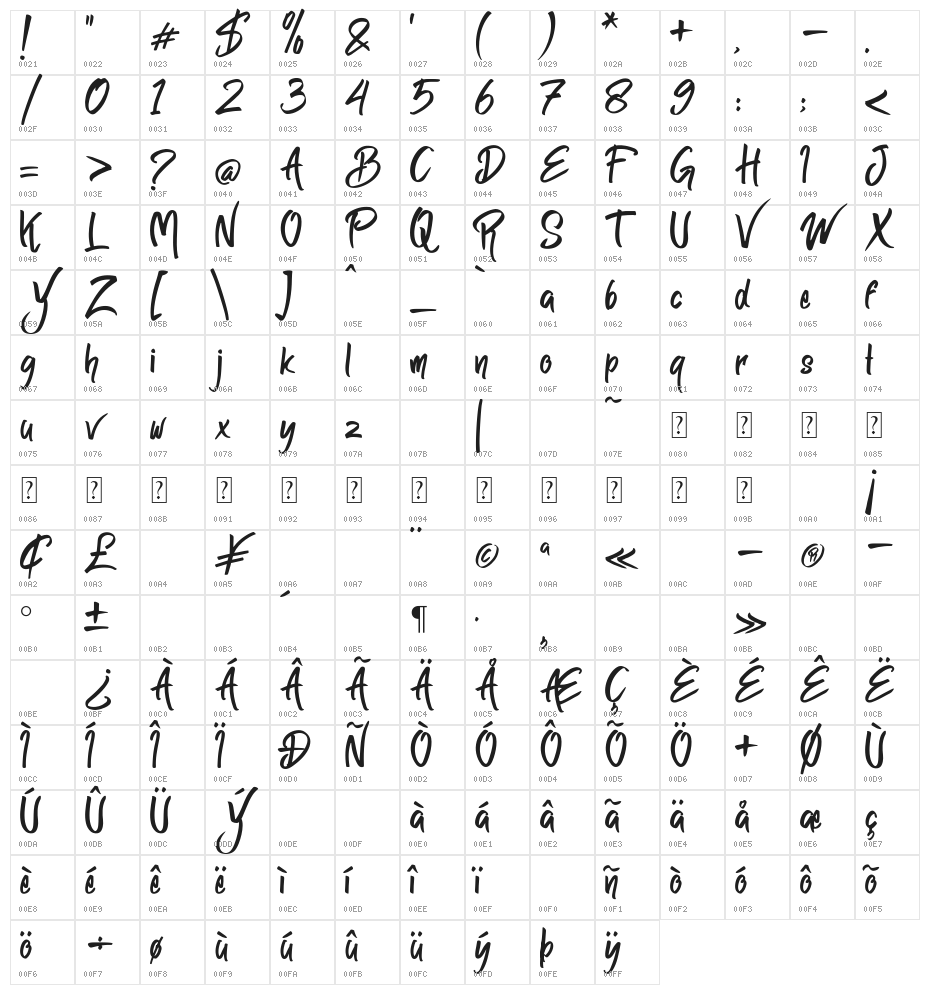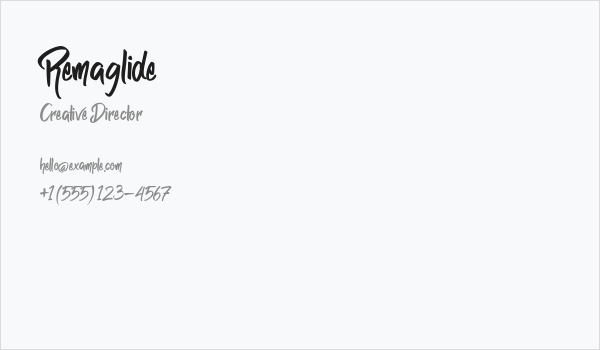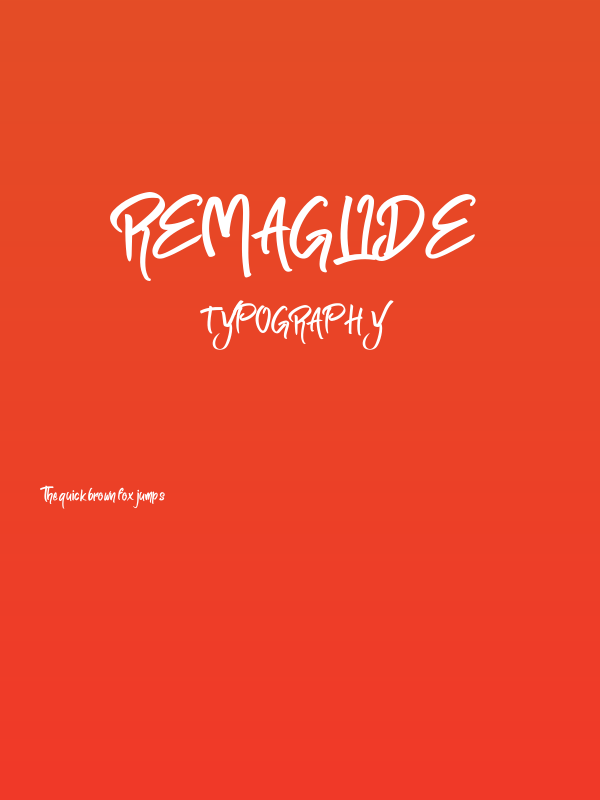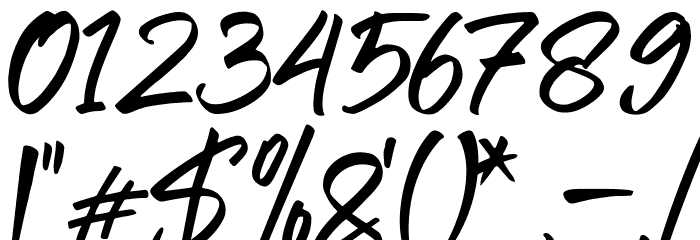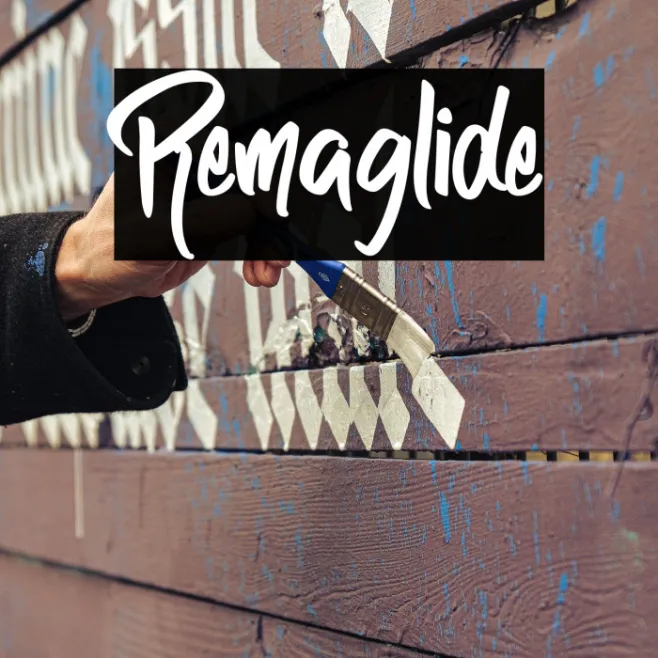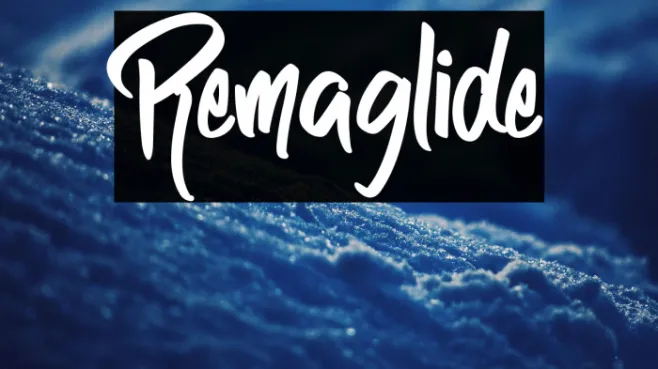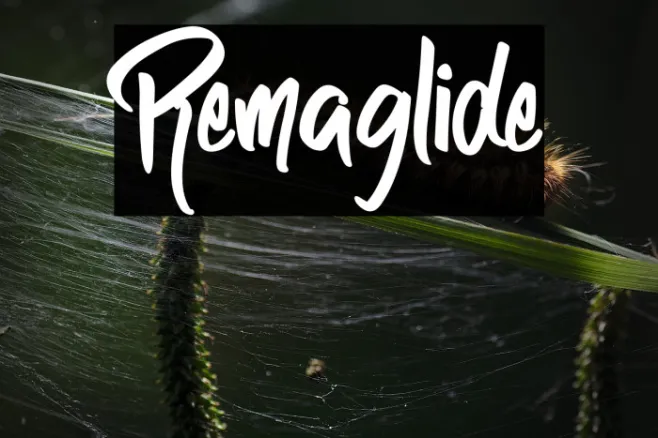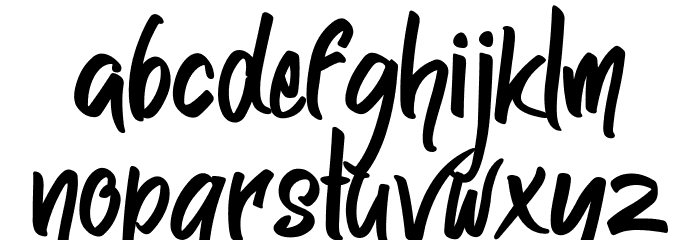
Remaglide Font
Remaglide Description
This font features a dynamic and energetic handwritten style, characterized by its bold and flowing strokes. The letters exhibit a natural, cursive appearance with a slight slant, creating a sense of movement and spontaneity. The uppercase and lowercase letters maintain a consistent style, with the uppercase being slightly more pronounced. Numbers and special characters are integrated seamlessly, maintaining the same lively aesthetic. The overall impression is one of creativity and expressiveness, making it suitable for projects that require a personal touch.
| Proposed Projects | Ideal for creative projects such as greeting cards, invitations, posters, and branding materials that require a personal and expressive touch. |